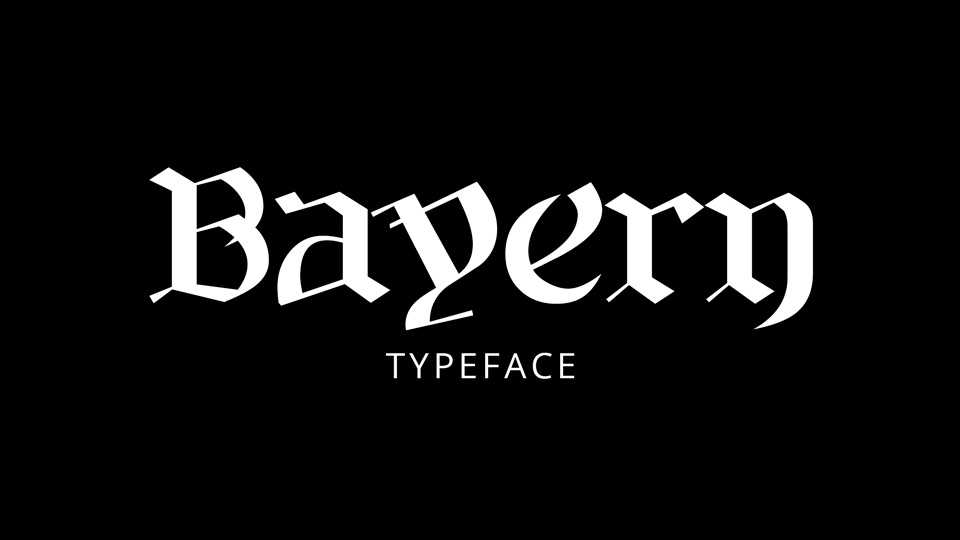
Download Bayern, a blackletter typeface inspired by a German “Bavaria”. Bayern is a calligraphy font for headlines, posters, prints and other authentic projects.
Designer: Darren Rigby